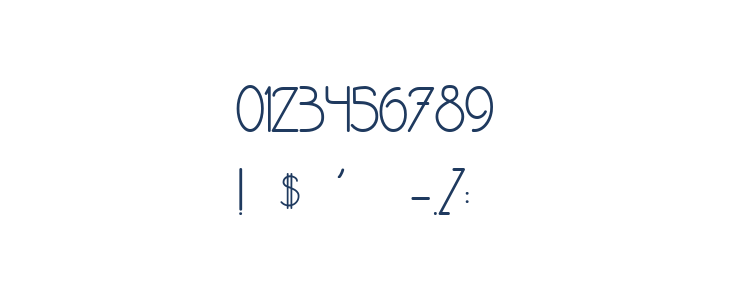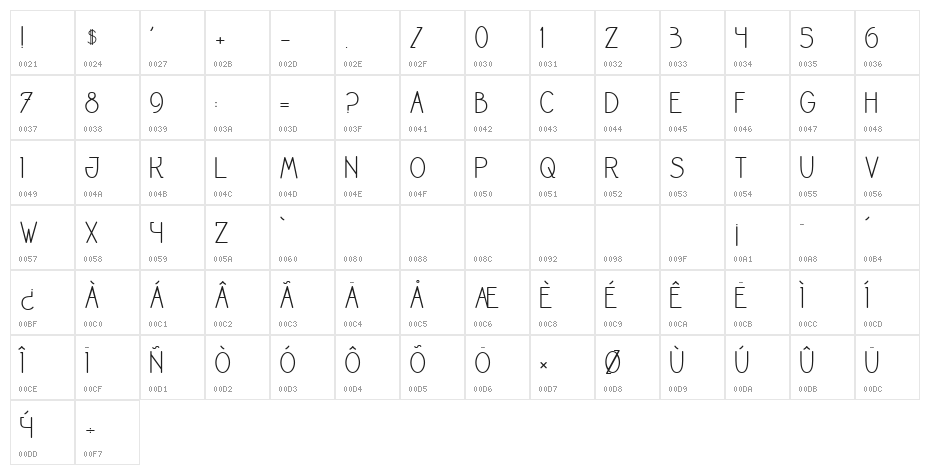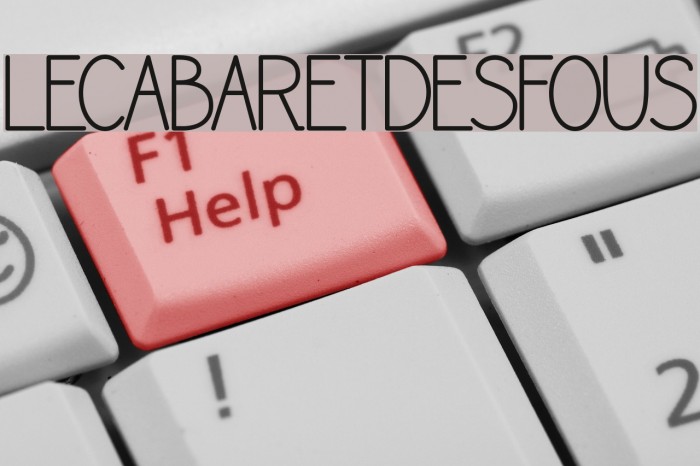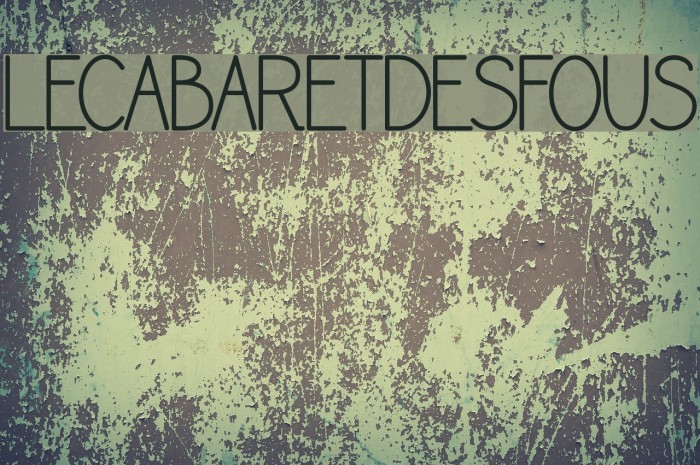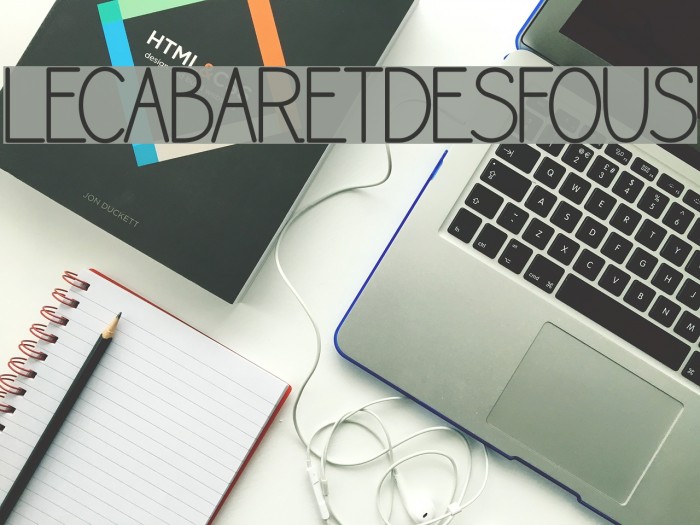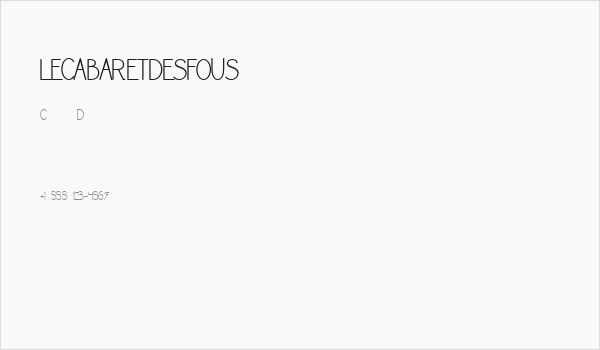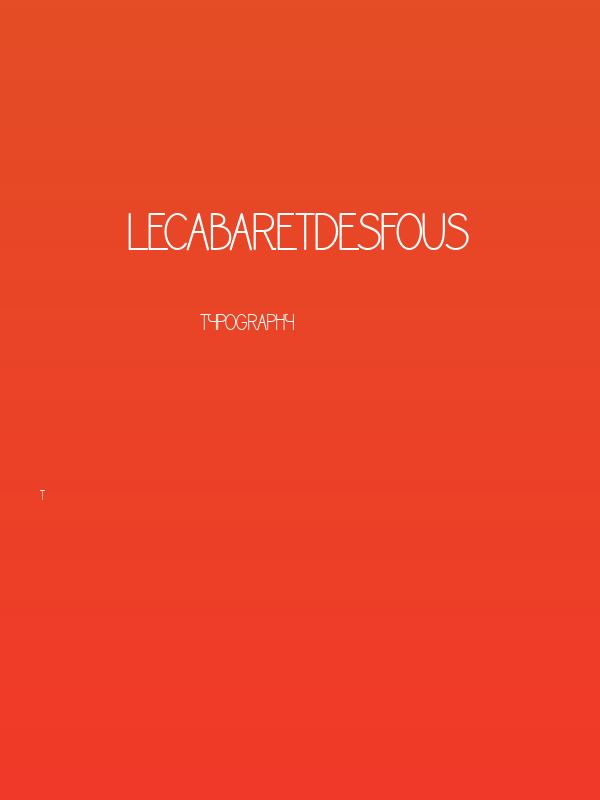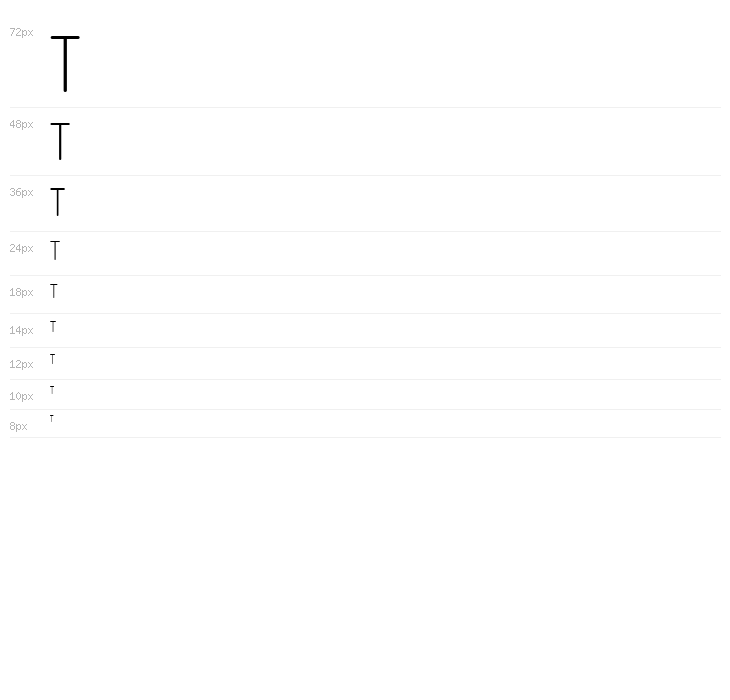
LECABARETDESFOUS Font
LECABARETDESFOUS Description
This font features a unique and artistic design with a modern twist. The characters are tall and slender, with a distinct geometric influence. The uppercase letters have a consistent height and width, creating a harmonious and balanced appearance. The lowercase letters maintain the same geometric style, offering a cohesive look throughout. Numbers are designed with the same attention to detail, ensuring readability and style. Special characters are included, adding versatility to the font. The overall design is clean and minimalistic, making it suitable for a variety of creative projects.
| Overall Style | Modern, Geometric |
| Proposed Projects | Ideal for branding, posters, album covers, and modern editorial designs. |